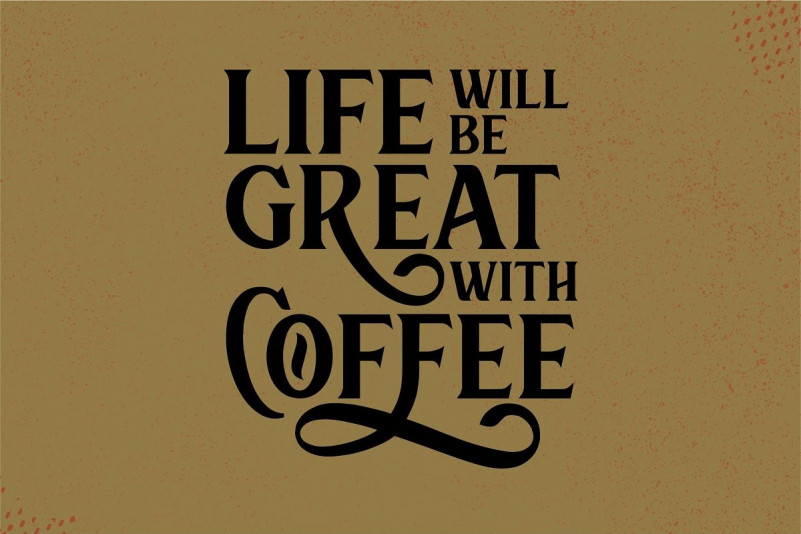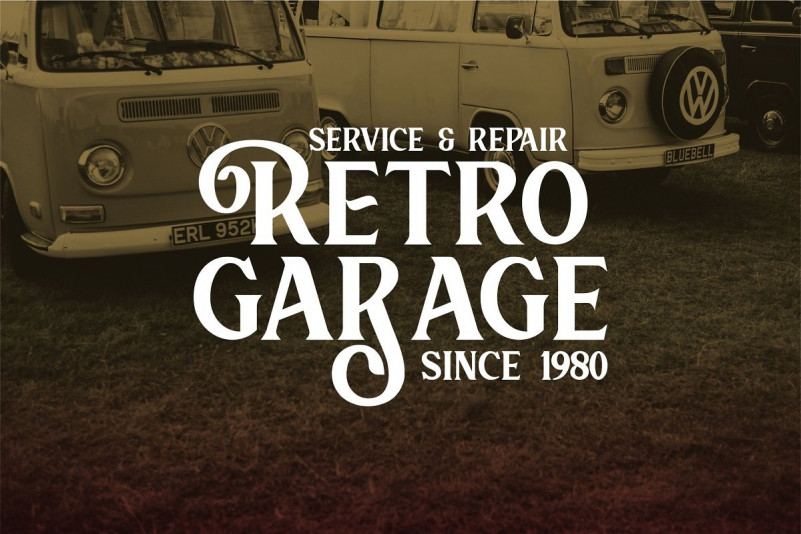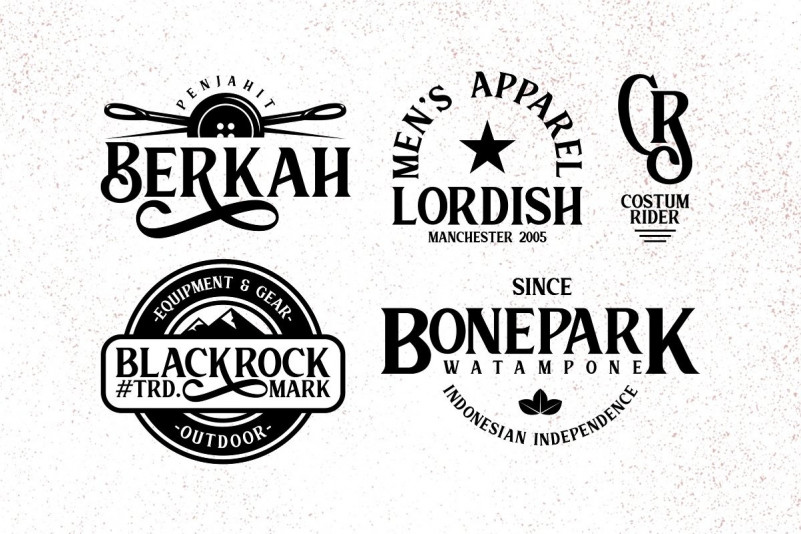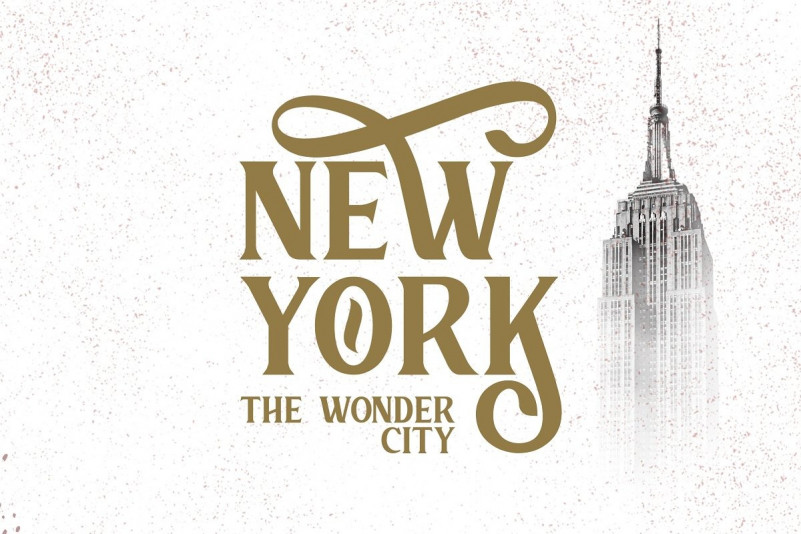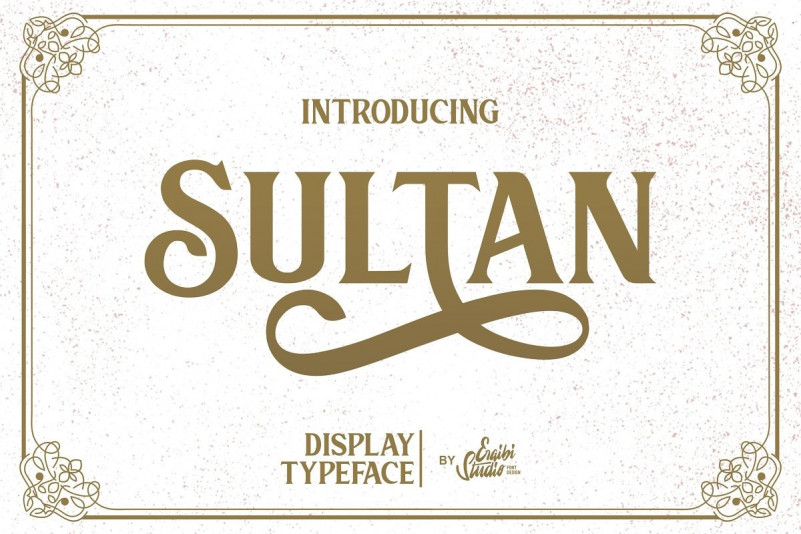
Sultan Serif Font
Thank you for looking Sultan Font. This is a classy bold serif font with beautiful alternate characters and also ligature which makes it easy for you to create a logo for your personal branding and your business beautifully. It has a vintage form with the addition of modern decorative and minimalist shape. Fonts consist of special uppercase letters and alternate characters. fonts are multilingual support and are perfect for logos, branding, mockups, t-shirts, branding, and various needs that want this vintage form